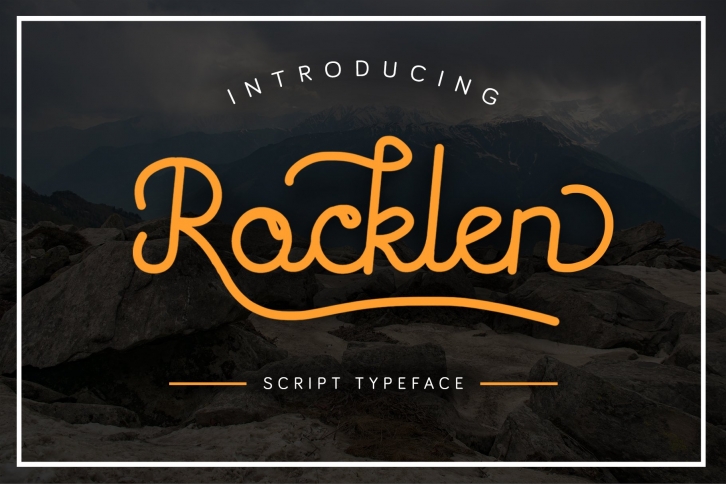
Rocklen Font is a handcrafted Monoline script, this style gives a feel of vintage, classic, old, and handmade. Suitable for any graphic designs such as branding materials, t-shirt, print, business cards, logo, poster, t-shirt, photography, quotes .etc
Character Details
- Uppercase alphabet A-Z
- Lowercase alphabet a-z
- Alternate Character
- Numbers 0-9
- Some punctuation